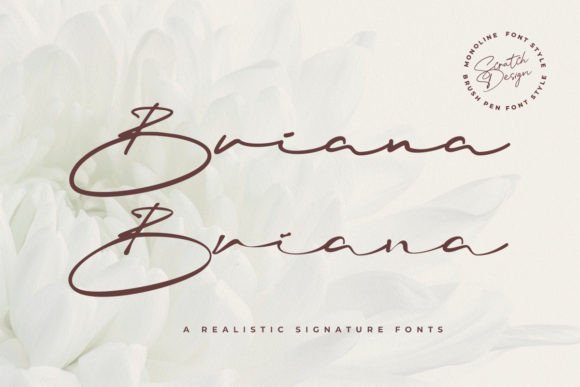
Adding a Personal Touch: The Allure of Handwritten Fonts
There’s something special about seeing a handwritten message or a beautifully crafted logo – it instantly conveys a sense of personality and authenticity. For designers, finding the perfect font to capture this essence can be a challenge, but what if you could have it all in one? Meet Briana Font, a versatile and realistic signature font that brings a touch of human emotion to any project.
With two distinct styles to choose from – Monoline and Brush Pen – Briana Font is perfect for a wide range of applications, from logos and branding to invitations, social media posts, and product packaging. This font is a valuable asset for designers looking to add a handwritten touch to their work, elevating it from generic to genuine.
Briana Font Key Features
- Font Family: Briana
- Unique Characteristics: Elegant, cursive script with a modern twist, perfect for wedding invitations, greeting cards, and other creative projects
- Font Styles: Regular, Italic
Briana Font Review
After diving into the world of Briana Font, I have to say that it’s a solid choice for any designer looking for a clean and elegant script. ✨ The font’s fluidity and organic feel make it perfect for creating visually appealing titles, headings, and even short paragraphs. The subtle flair on the letters adds a touch of sophistication, elevating any design project.
- ✨ Unique and elegant script style
- ✨ Versatile and suitable for various design applications
- ✨ High-quality rendering and crisp lines
However, I did notice a few limitations. ⚠️ The font’s legibility can be compromised at smaller font sizes, making it less suitable for body text. Additionally, some characters may require additional tweaking to ensure proper spacing and alignment.
- ⚠️ May struggle with legibility at smaller font sizes
- ⚠️ Requires adjustments for proper spacing and alignment in some characters
Overall, Briana Font is a beautiful addition to any designer’s toolkit. While it may not be perfect for every project, its unique style and elegance make it a great choice for creating memorable and impactful designs.
Use Briana Font for titles and headings to add a touch of elegance and sophistication to your designs. It’s also suitable for body text when you want to create a clean and modern look. Experiment with different font sizes and styles to find the perfect balance for your design.
Alternatives to Briana Font for Designers
Playfair Display is a luxurious and elegant script font, perfect for adding a touch of sophistication to headings and titles. It is ideal for use in high-end branding, luxury goods, and formal invitations.
Comparison to Briana Font: While Briana Font has a similar elegant feel, Playfair Display is more ornate and luxurious, making it a better choice for high-end designs. Playfair Display is also more versatile, suitable for a wider range of font sizes and styles.
Great Vibes is a modern and stylish script font, perfect for creating a friendly and approachable atmosphere. It is ideal for use in branding, advertising, and social media graphics.
Comparison to Briana Font: Great Vibes has a more casual and relaxed feel compared to Briana Font, making it a better choice for designs that require a friendly and approachable tone. Great Vibes is also more versatile, suitable for a wider range of font sizes and styles.
Carolyna Pro is a elegant and sophisticated script font, perfect for adding a touch of luxury to headings and titles. It is ideal for use in high-end branding, luxury goods, and formal invitations.
Comparison to Briana Font: Carolyna Pro has a similar elegant feel to Briana Font, but with a more refined and sophisticated look. Carolyna Pro is also more versatile, suitable for a wider range of font sizes and styles.